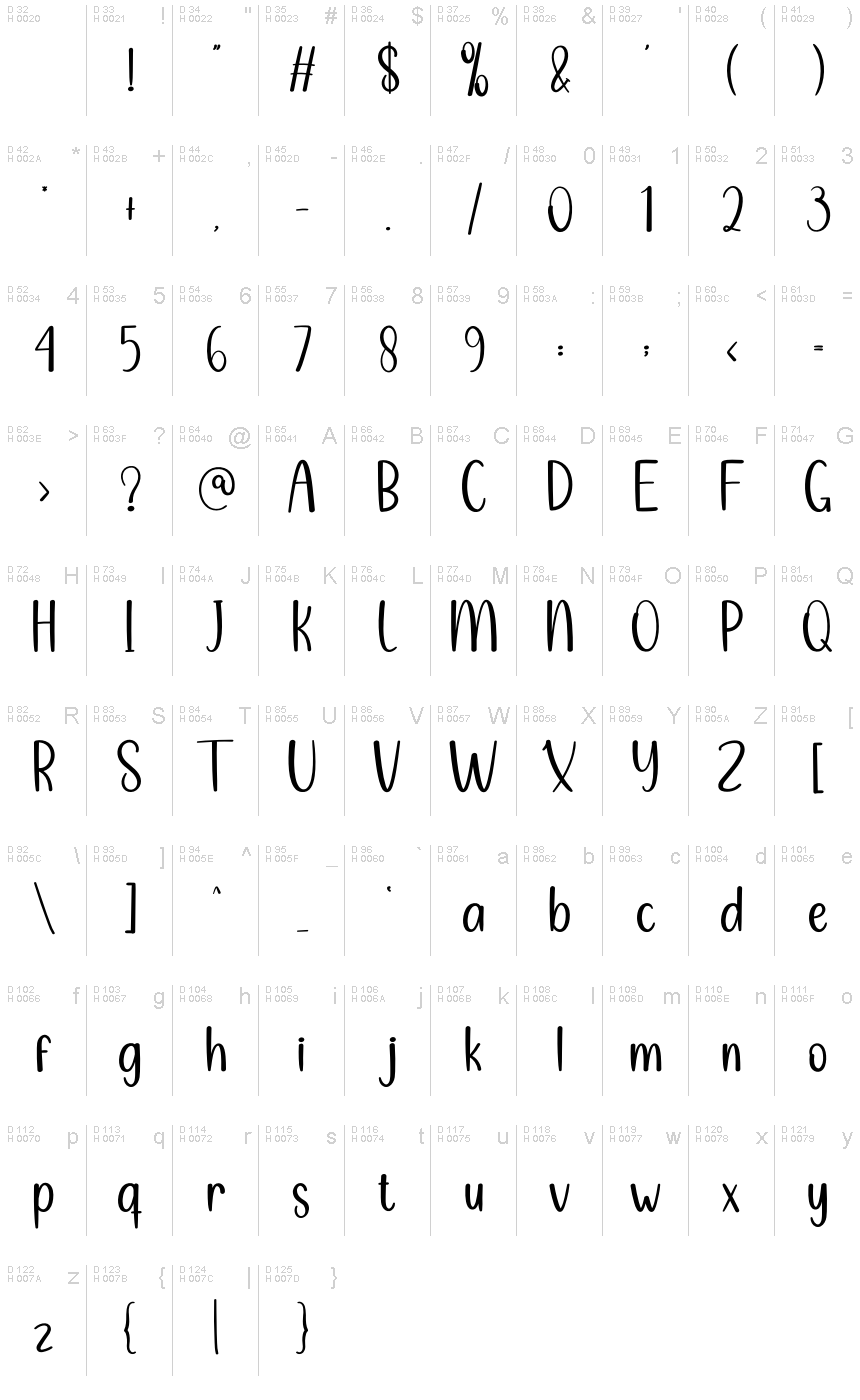
Holiday Valentine
Holiday Valentine is a delightful handwritten font that exudes a warm, romantic charm. Crafted by the talented designer Andi Moz, this font showcases a whimsical, script-like aesthetic with its flowing strokes and playful ligatures. The font's distinctive flourishes and organic shapes lend a sense of artistry and personalization, making it an ideal choice for greeting cards, invitations, and other intimate design projects.
Whether you're creating a heartfelt Valentine's Day message or adding a touch of elegance to a wedding suite, "Holiday Valentine" offers a versatile and visually captivating solution that captures the essence of love and celebration.